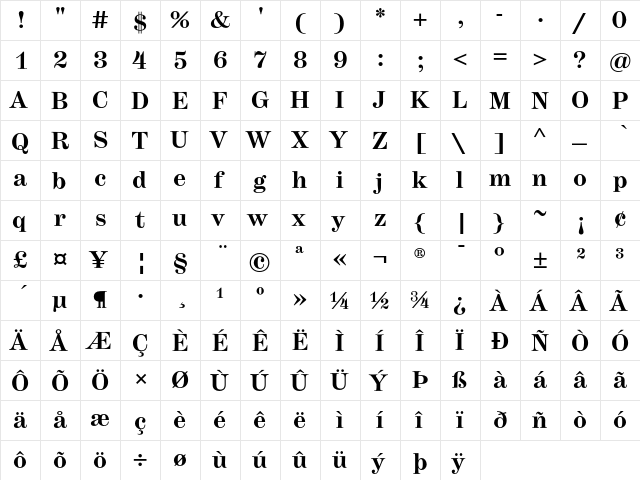
Hercules Bold
Design Context for Hercules Typeface
Hercules offers clean, dependable letterforms without strong stylistic allegiance, making it a practical choice for designers who need flexibility. Its bold stroke weight gives it real presence on the page.
Pro Tip: Pair Hercules with a font of contrasting weight or personality to build a more expressive typographic hierarchy.